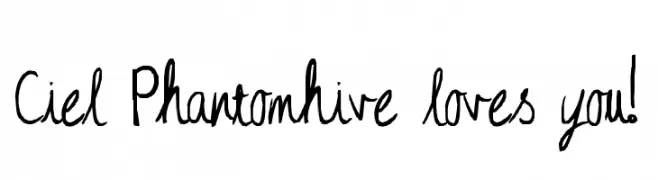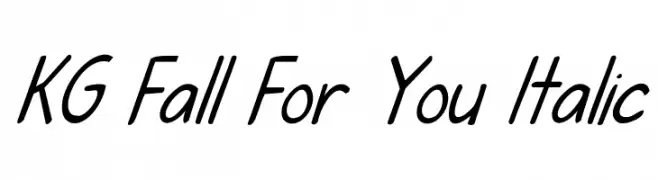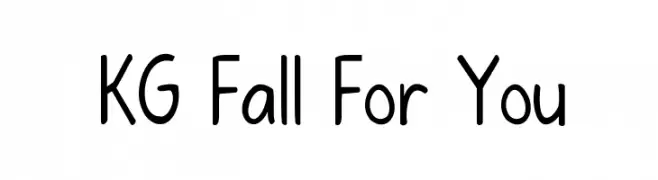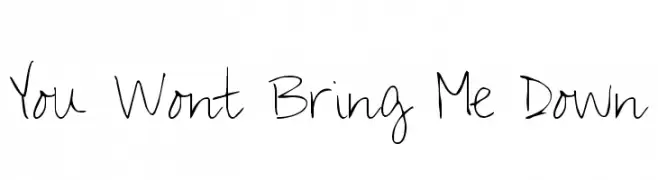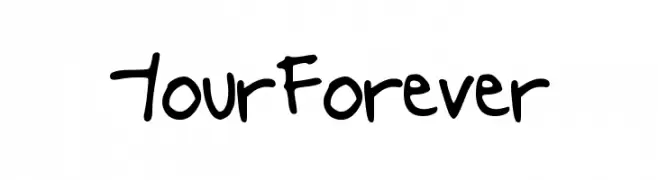
A geometric, modern font with clean lines and a minimalist aesthetic.
A geometric and modern font with clean lines and uniform stroke width.
A bold, textured font with a hand-drawn, artistic style.
A playful, dice-themed decorative font with bold, high-contrast characters.
A bold, dynamic script font with a modern, energetic feel.
A playful, handwritten font with rounded edges and a casual style.
A playful, handwritten font with a casual and friendly appearance.
A bold, italicized font with a double-line shadow effect for a modern, dynamic look.
Casual handwritten font with a playful style.
A modern, geometric sans-serif font with rounded edges and consistent stroke widths.
A modern, geometric sans-serif font with rounded shapes and uniform stroke width.
A bold, graffiti-inspired font with dynamic shapes and intricate details.
A decorative, nature-inspired font with organic, vine-like shapes.
A casual, hand-drawn font with a condensed and playful style.
A casual, playful handwriting-style font with rounded characters.
A bold, geometric font with clean lines and a modern aesthetic.
A bold, geometric font with a modernist design and strong emphasis on lines.
A playful, handwritten font with irregular and dynamic letterforms.
A bold, playful font with a hand-drawn, whimsical style.
A bold, italic, brush-style font with a dynamic and expressive handwritten feel.
A playful, handwritten-style font with dynamic, slanted characters.
A playful, hand-drawn font with a casual, informal style.